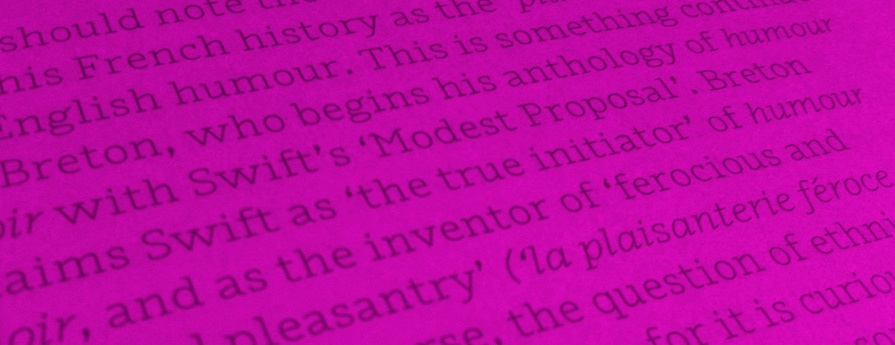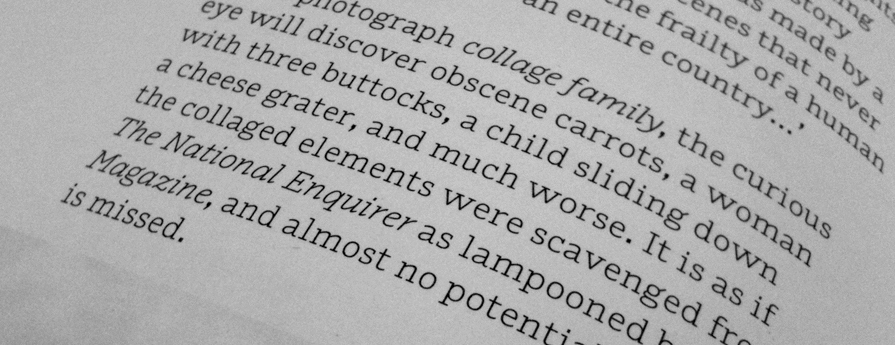
Outsiders
Outsiders is an elegant slab serif face with an equally stylish italic design that is an ideal choice for typesetting long form writing and editorial features.